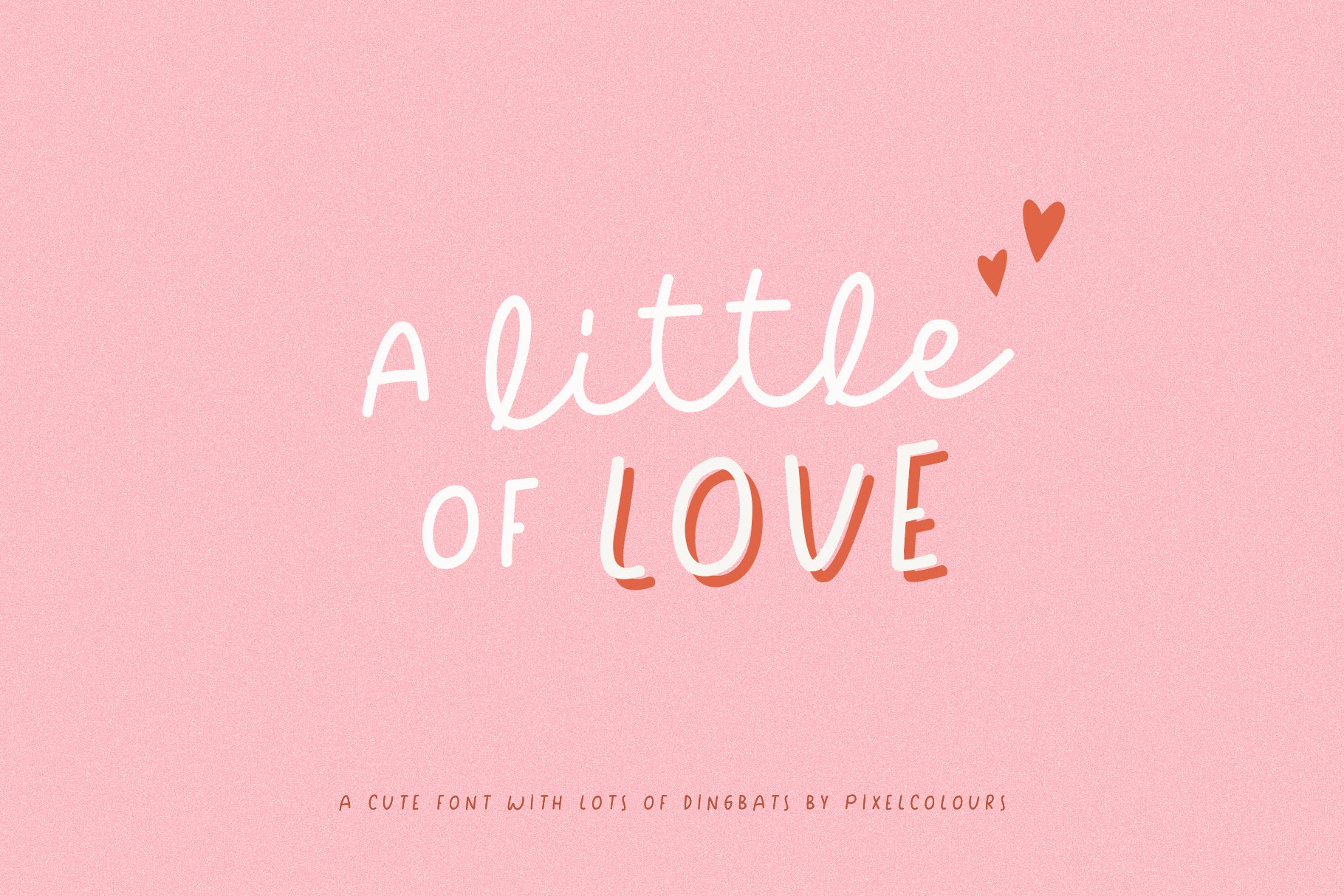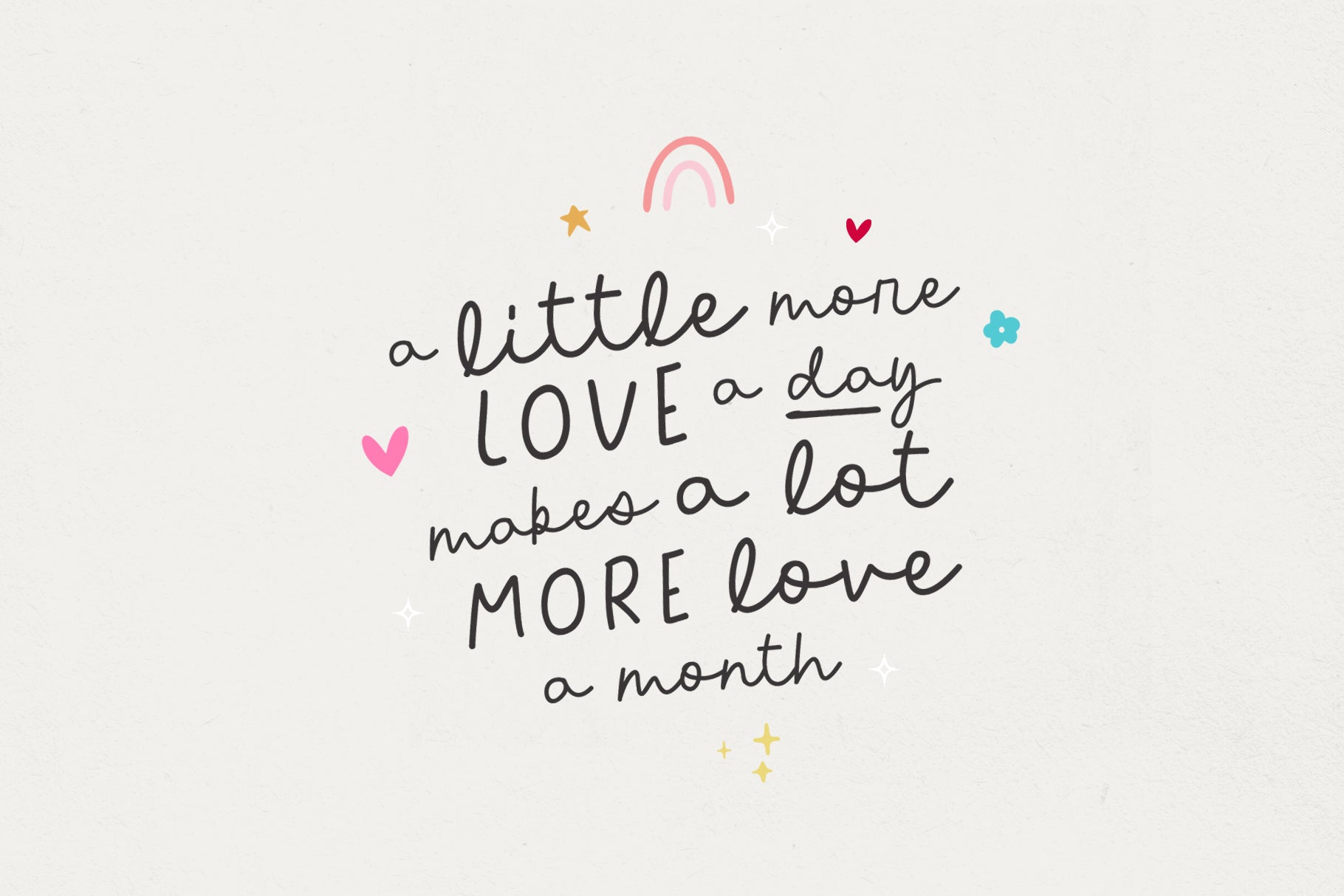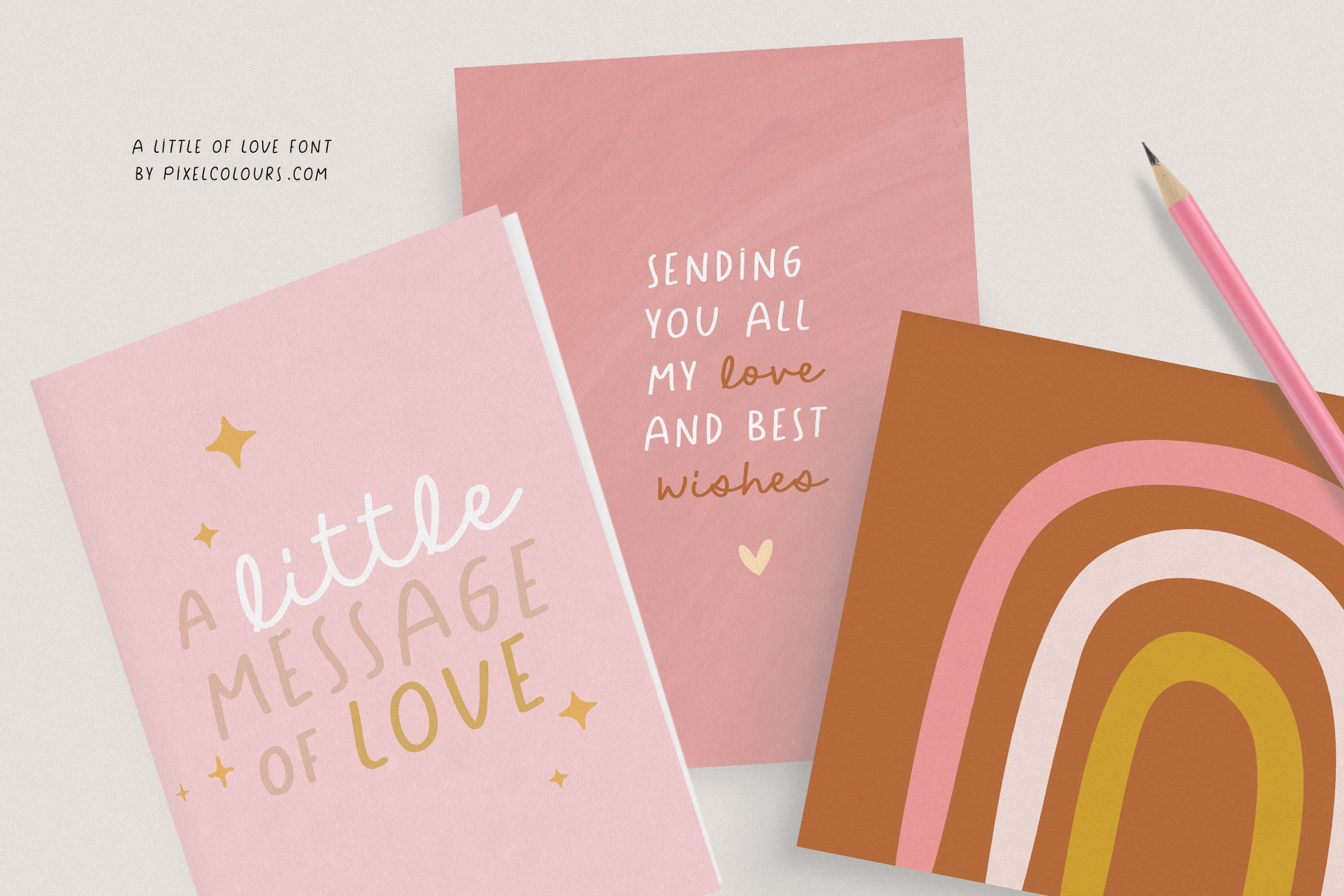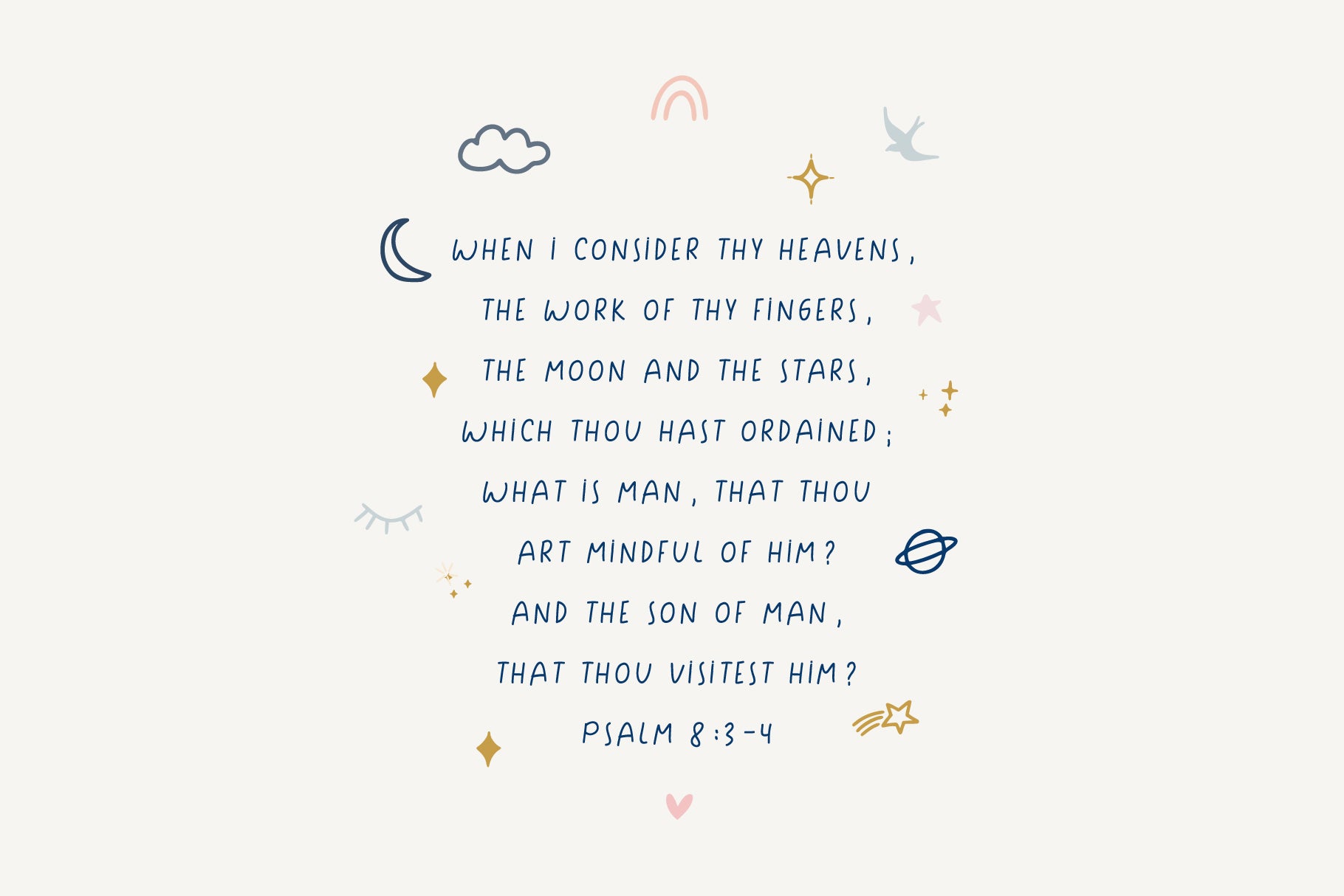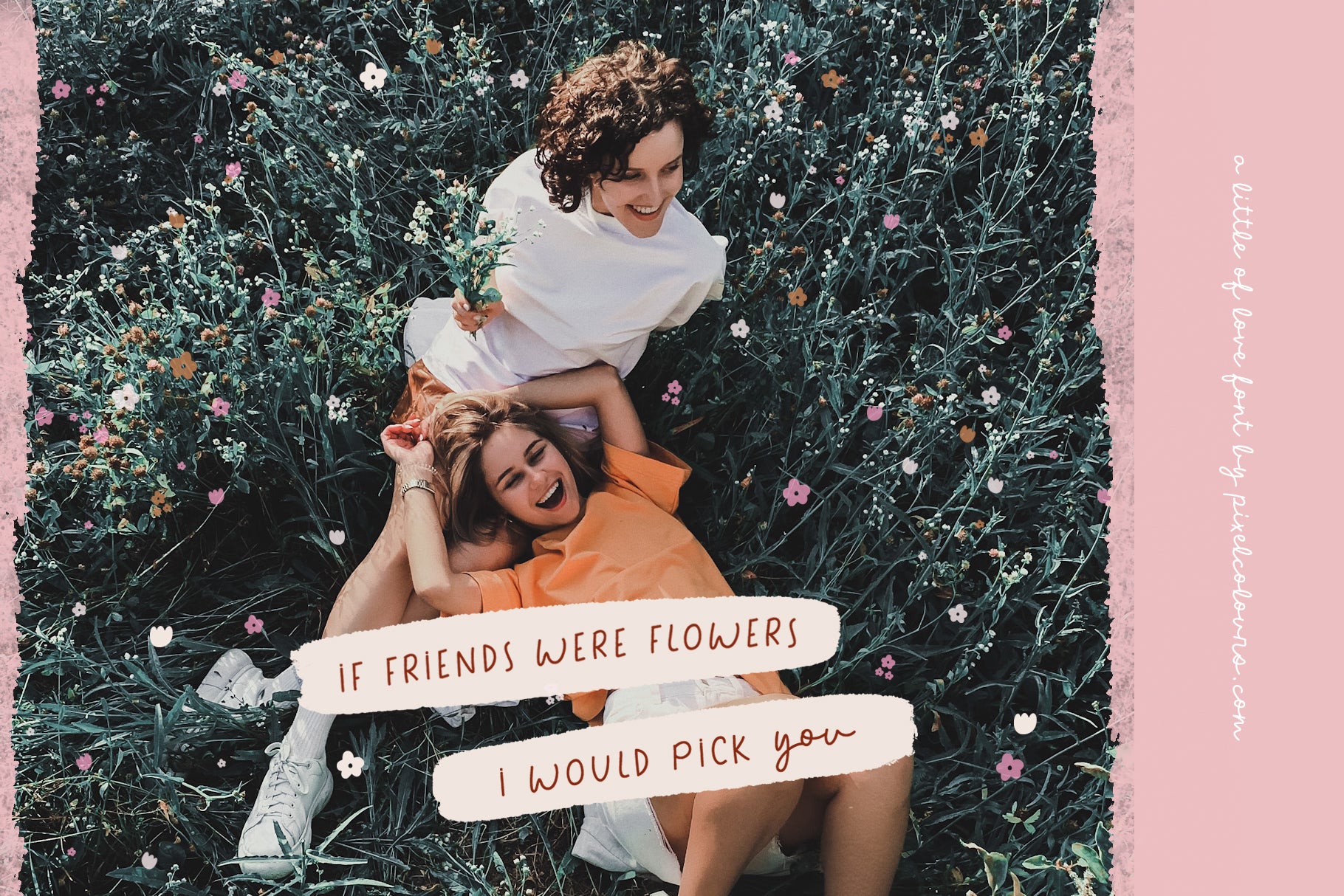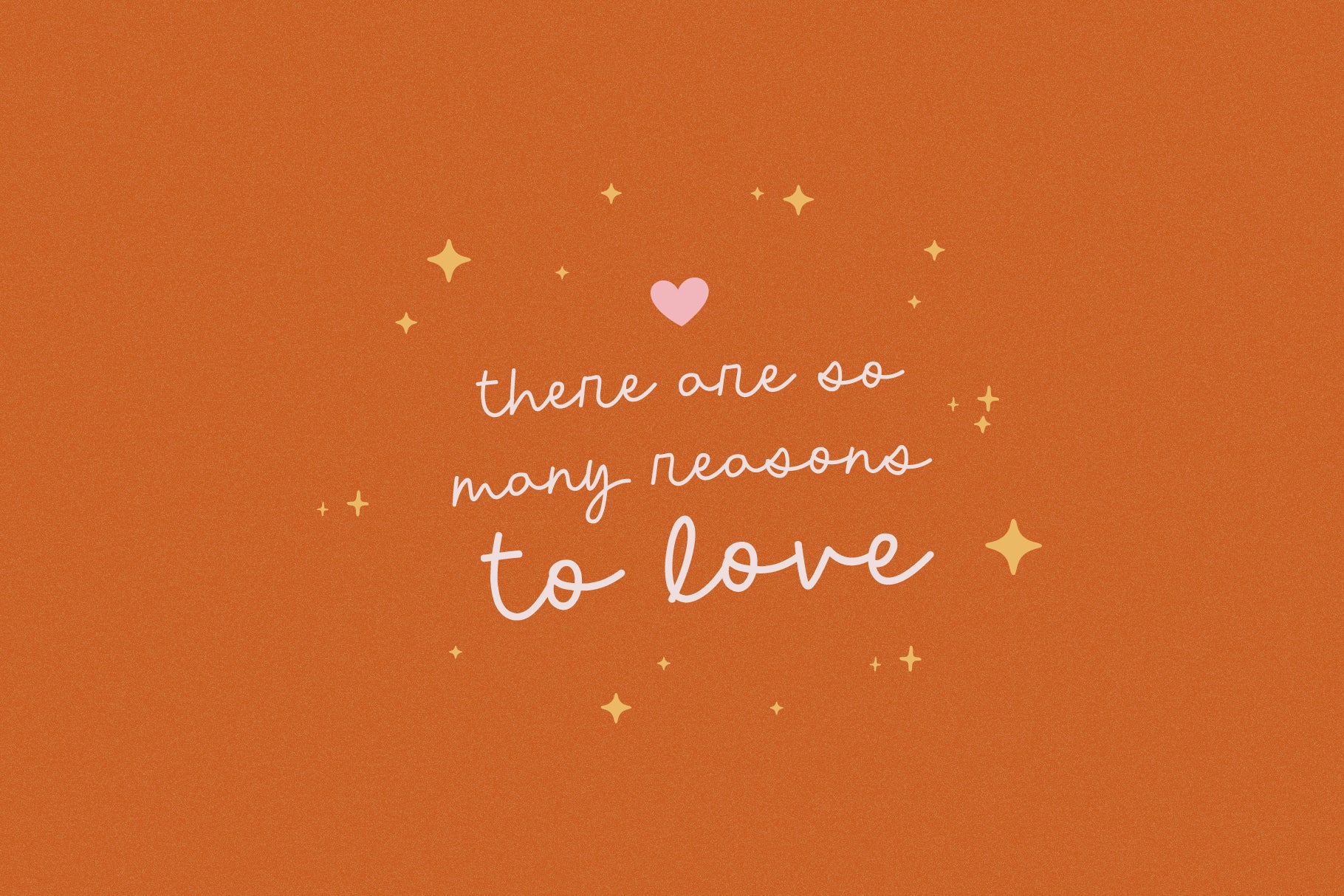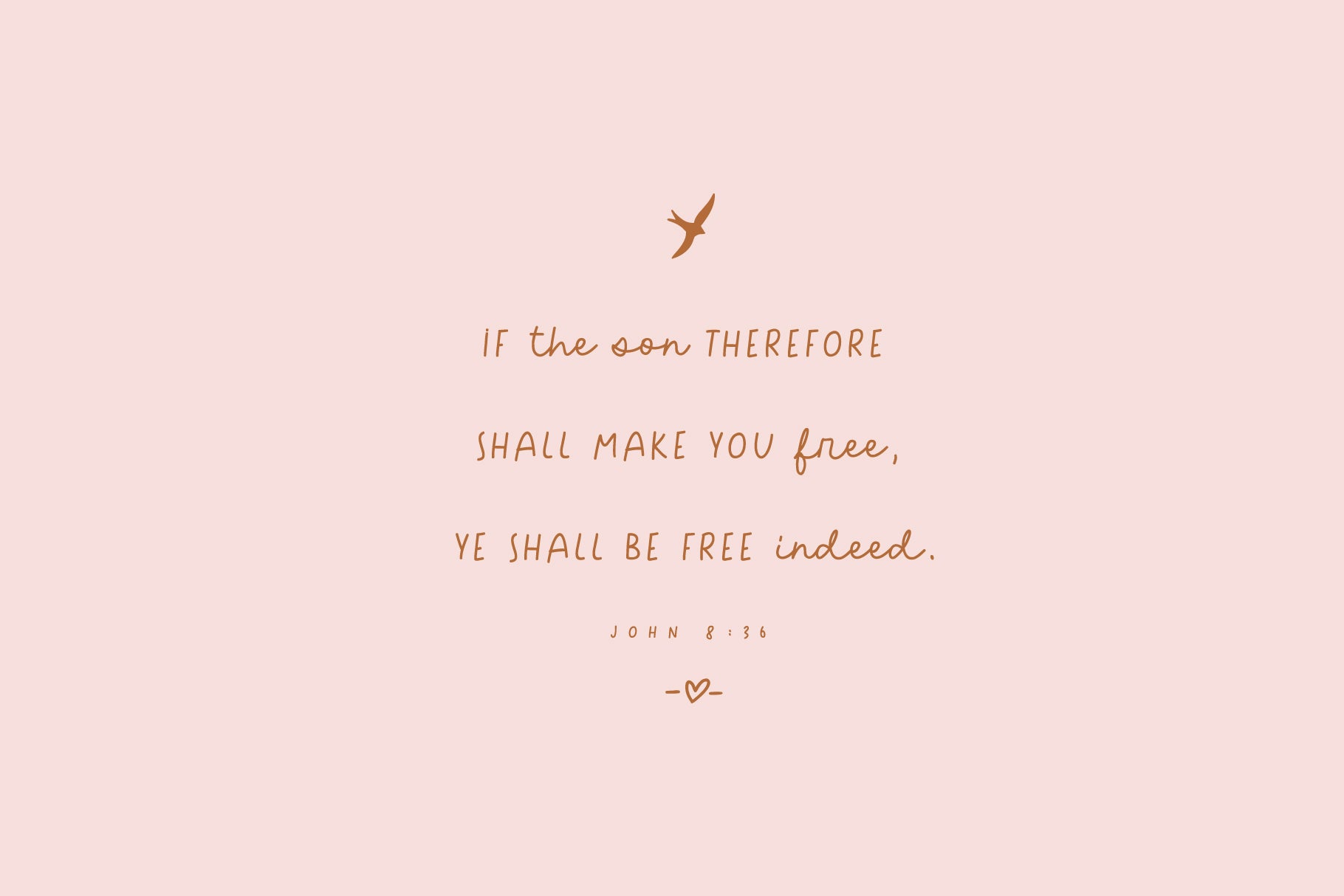
A Little of Love Quirky Font Duo
A Little of Love is a handwritten font duo that includes lots of cute dingbats to decorate quotes, social media posts, greeting cards, etc. Make combinations between the uppercase sans and the lowercase script and design beautiful projects!
- A Little of Love: a combination of a sans and a script font
- A Little of Love Dingbats: 80 cute illustrations